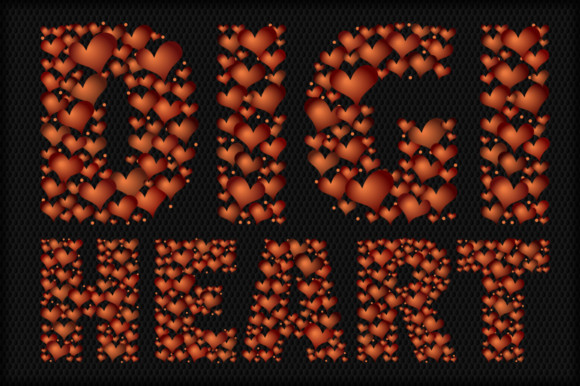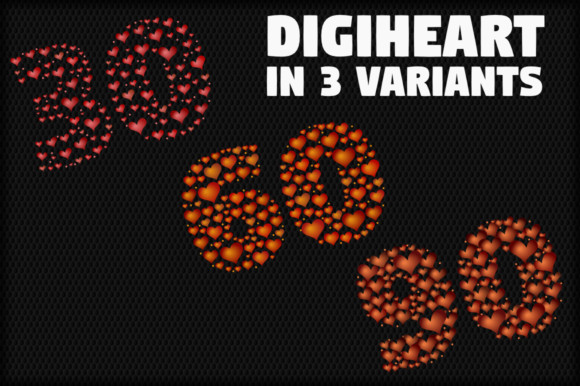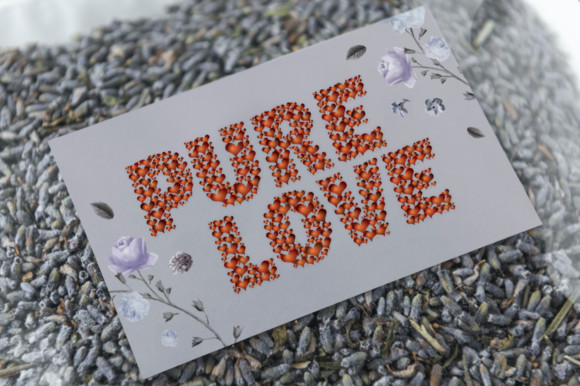
Digiheart Font
Digiheart is an incredibly unique color font. It comes in 3 styles that makes it incredible versatile. Take your projects to the next level with Digiheart!